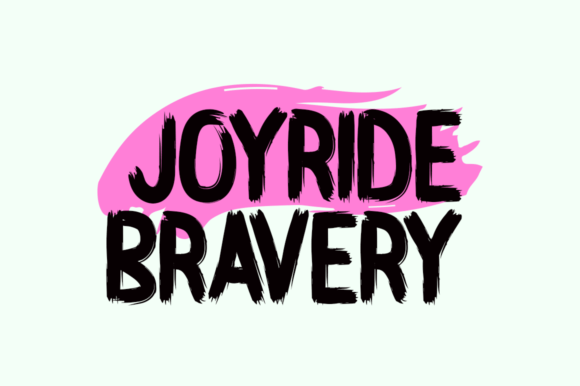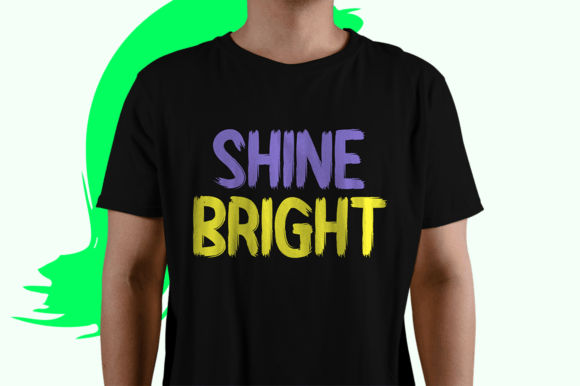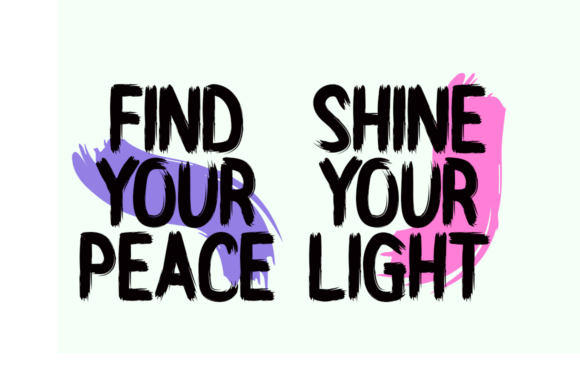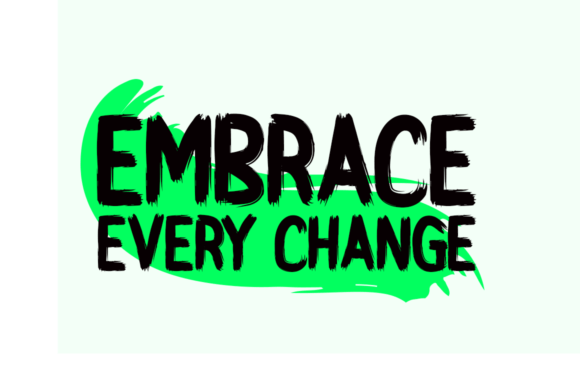
Introducing Fighton Font: The Vibrant Brush-Style Display Font for Creative Designs
In the world of digital design, fonts play a crucial role in conveying the tone and personality of a brand or creative project. For designers and crafters looking to add a fresh, artistic flair to their work, Fighton Font is an exciting new addition to the world of typography. This vibrant brush-style display font is designed to bring a unique and creative touch to a wide range of designs, from stationery and logos to t-shirts, paper products, and more.
What is Fighton Font?
Fighton Font is a carefully crafted brush-style display font that exudes a sense of energy and creativity. Its unique, hand-brushed texture gives it a distinctive look that is both modern and artistic. The font’s design is characterized by its bold, expressive lines and fluid movements, making it perfect for designs that require a touch of personality and whimsy.
Key Features of Fighton Font
- Vibrant and Artistic: Fighton Font boasts a vibrant and artistic design that’s sure to make your creations stand out.
- Brush-Style Texture: The font’s hand-brushed texture gives it a unique, organic feel that’s perfect for designs that require a touch of personality.
- Highly Versatile: Fighton Font is suitable for a wide range of uses, including stationery, logos, t-shirts, paper products, print media, website headers, photo frames, flyers, music covers, posters, image sliders, and more.
- Easily Customizable: The font is easy to customize, allowing you to adjust the size, color, and style to fit your design needs.
Use Cases for Fighton Font
Fighton Font is an incredibly versatile font that can be used in a variety of creative projects. Here are some use cases to get you started:
- Stationery: Add a touch of personality to your business cards, letterheads, and envelopes with Fighton Font.
- Logos: Create a unique and memorable logo for your brand using Fighton Font.
- T-Shirts and Apparel: Design eye-catching t-shirts, hoodies, and other apparel with Fighton Font.
- Paper Products: Use Fighton Font to create stunning designs for paper products such as notebooks, journals, and gift tags.
- Print Media: Add a creative touch to your brochures, flyers, and posters with Fighton Font.
- Website Headers: Use Fighton Font to create stunning website headers that grab attention.
- Photo Frames and Sliders: Add a touch of elegance to your photo frames and sliders with Fighton Font.
- Music Covers and Posters: Design eye-catching music covers and posters with Fighton Font.
Why Choose Fighton Font?
With so many fonts available, why choose Fighton Font? Here are a few reasons why Fighton Font stands out:
- Unique Design: Fighton Font boasts a unique and artistic design that’s sure to make your creations stand out.
- High-Quality: The font is carefully crafted to ensure high-quality and crisp lines, making it perfect for both digital and print designs.
- Easily Readable: Despite its artistic design, Fighton Font is easily readable, making it perfect for use in a variety of creative projects.
- Customizable: The font is easy to customize, allowing you to adjust the size, color, and style to fit your design needs.
In conclusion, Fighton Font is a vibrant brush-style display font that’s perfect for designers and crafters looking to add a fresh, artistic flair to their creations. With its unique design, high-quality lines, and ease of customization, Fighton Font is an excellent choice for a wide range of creative projects. Whether you’re designing stationery, logos, t-shirts, or paper products, Fighton Font is sure to bring a touch of personality and whimsy to your work.